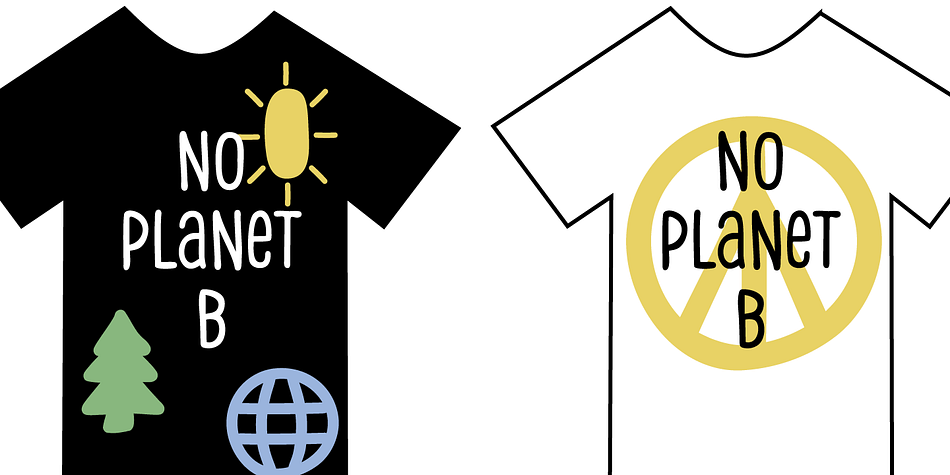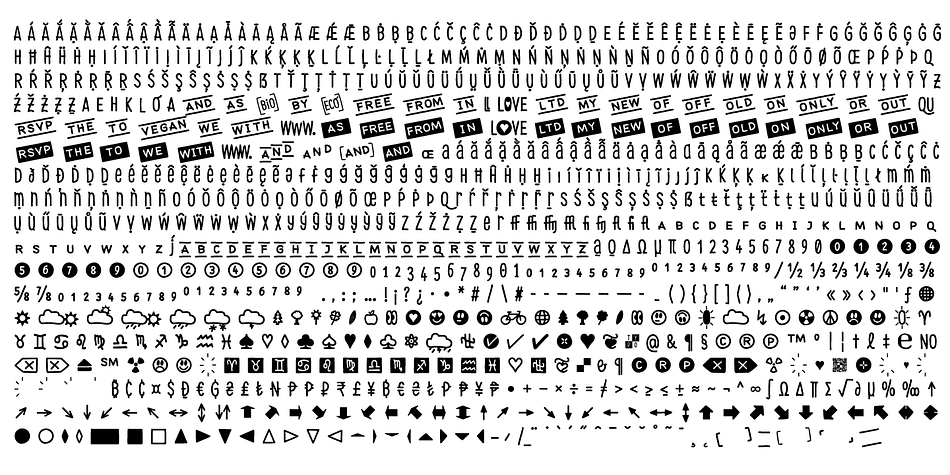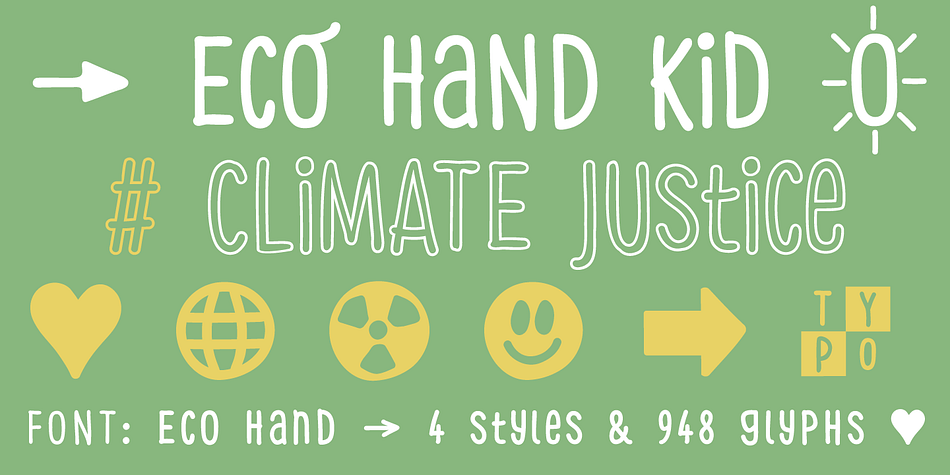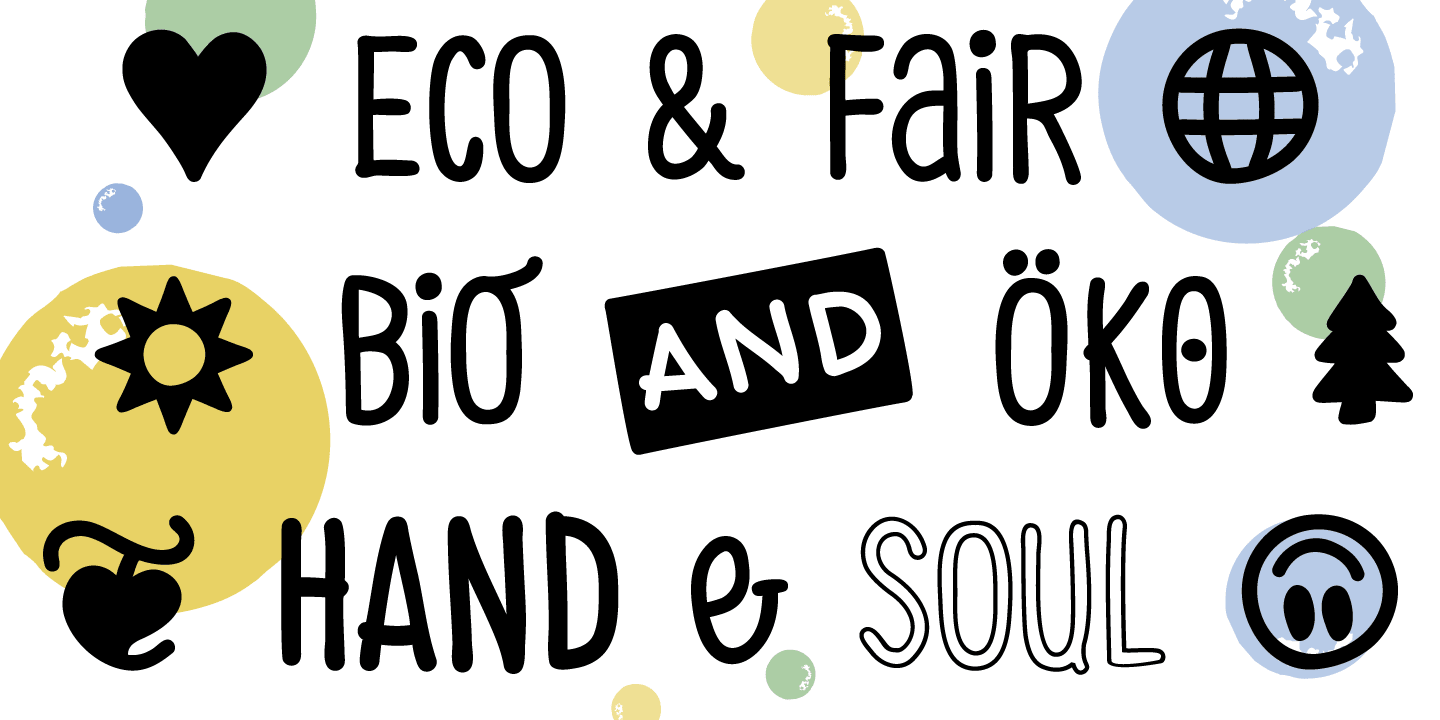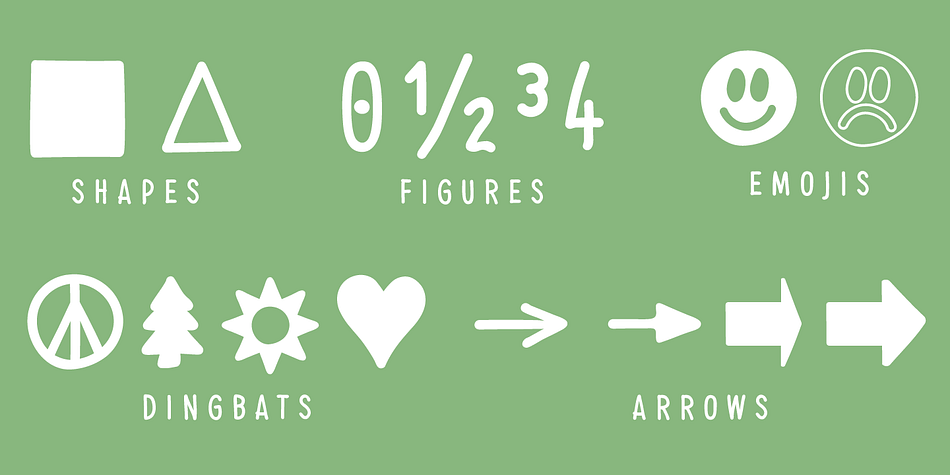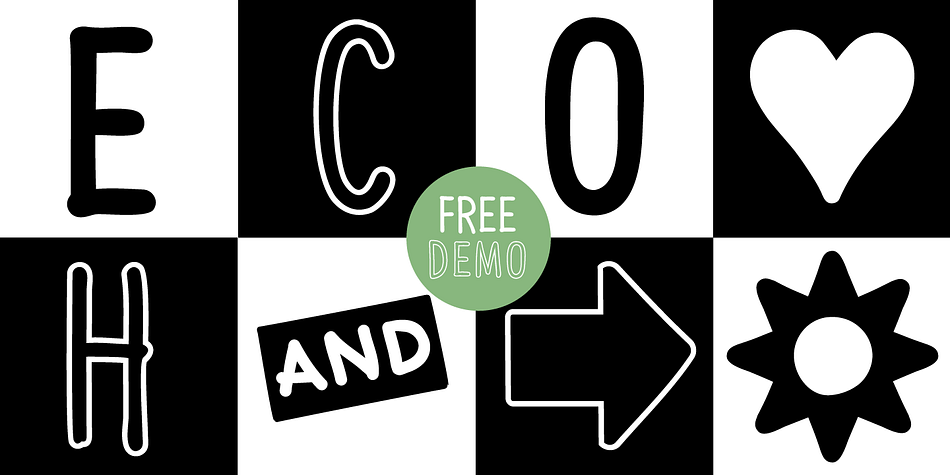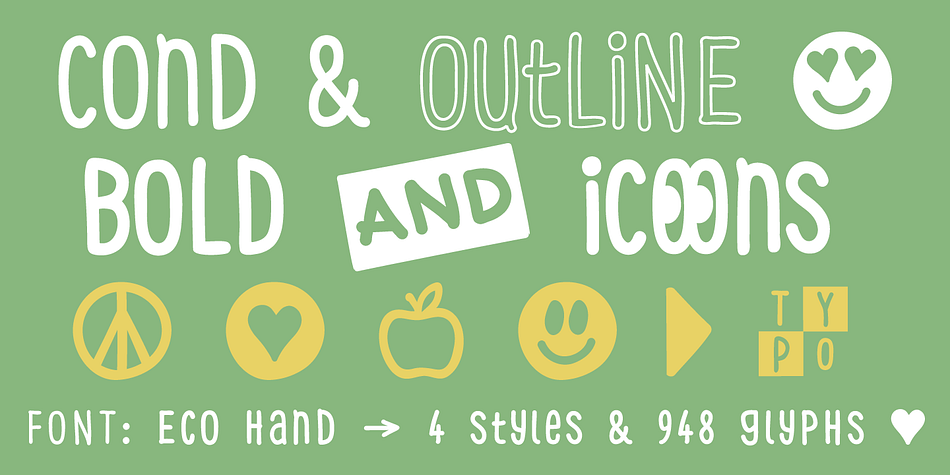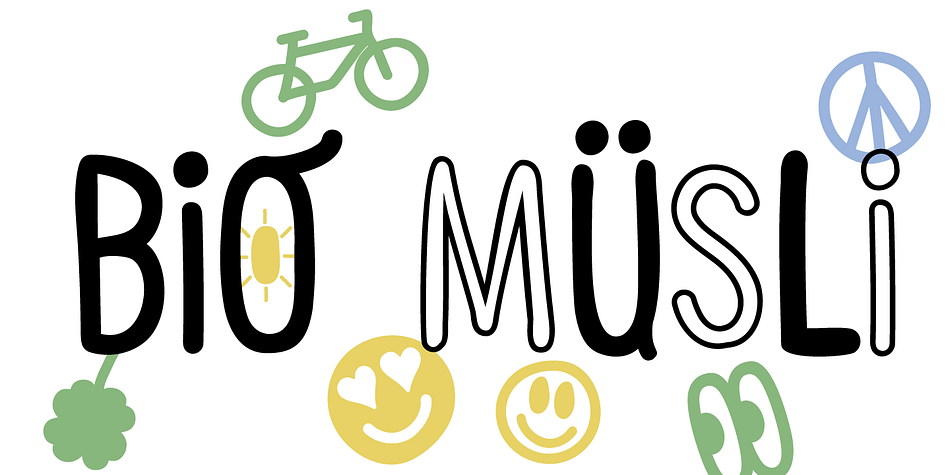
Designed by Manuel Viergutz, Eco Hand Kid is a multiple classification font family. This typeface has seven styles and was published by Typo Graphic Design.
The typeface Eco Hand Kid is designed from 2022 for the font foundry Typo Graphic Design by Manuel Viergutz as a political statement #climatejustice
4 font-styles (Cond, Bold, Outline, Icons) with 948 glyphs (Adobe Latin 3) incl. 100+ decorative extras like icons, arrows, dingbats, emojis, symbols, geometric shapes, catchwords, German Capital Sharp S, zodiac signs, ligatures (type the word #LOVE for ❤ or #SMILE for ☺ as OpenType-Feature dlig) and stylistic alternates (8 stylistic sets).
For use in logos, magazines, posters, advertisement plus as webfont for decorative headlines. The font works best for display size.
■ Font Category: Sans Serif Display for headline size
■ Glyph Set: 948 glyphs (Adobe Latin 3) incl. 100+ icons (decorative extras like arrows, dingbats, emojis, symbols)